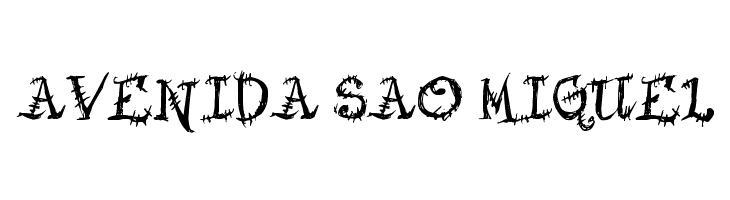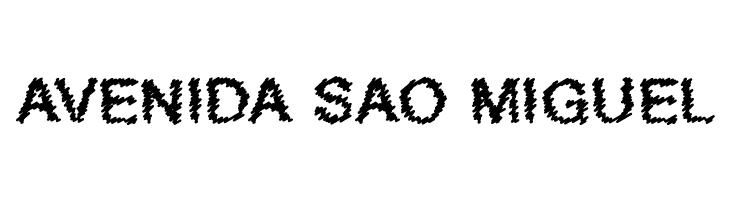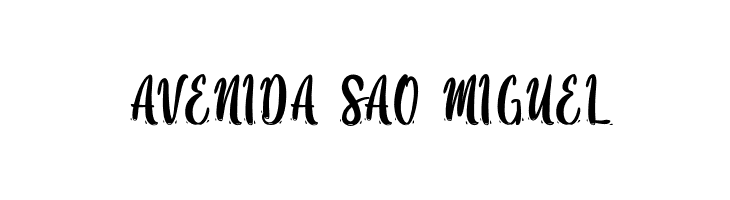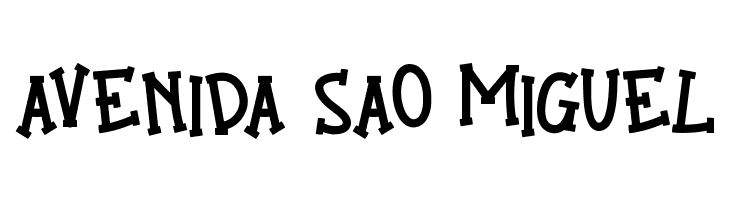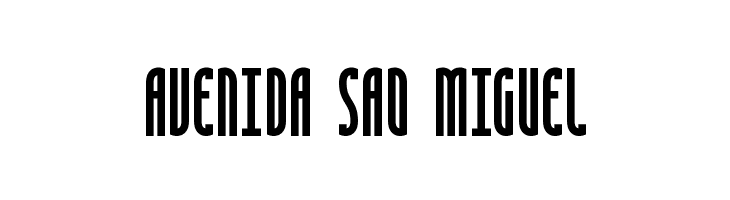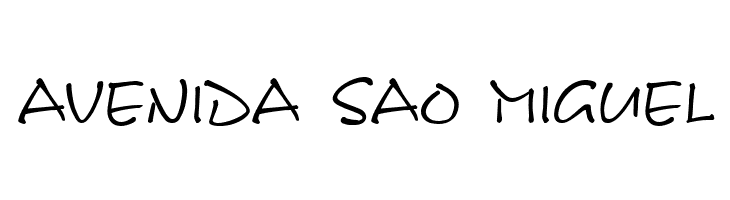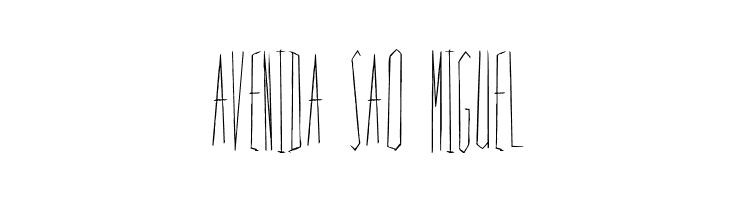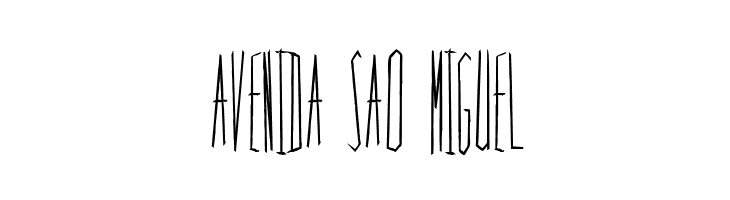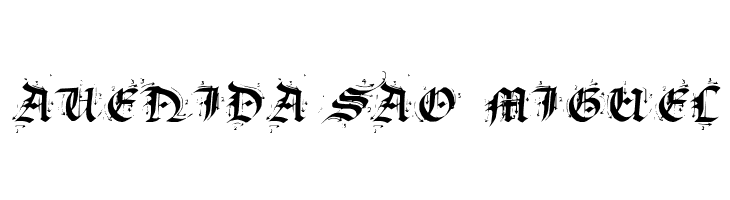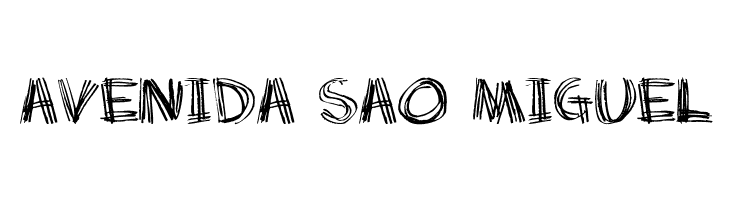
A cursive, handwritten-style font with elegant, flowing strokes.
A playful, wavy font with a hand-drawn, whimsical style.
A bold, gothic blackletter font with intricate, medieval-inspired designs.
A bold, cartoonish font with dynamic, slanted characters and a playful style.
A playful, bold font with whimsical, energetic characters and high contrast.
A playful, brush-style font with a hand-painted look, perfect for artistic projects.
A dynamic, handwritten font with elongated, slanted letterforms.
An edgy, distressed font with thorny, jagged edges.
An edgy, barbed wire-themed decorative font with bold, jagged characters.
A bold, narrow font with sharp serifs and an elegant, sophisticated style.
An edgy, graffiti-inspired font with sharp angles and a bold, artistic style.
A distressed, grunge-style font with a bold, hand-drawn appearance.
An elegant, cursive font with intricate flourishes and a classic calligraphic style.
An elegant, cursive font with ornate flourishes and a calligraphic style.
A bold, angular font with a futuristic and industrial design.
A vintage, typewriter-style font with a rough, textured appearance.
A vintage, typewriter-style font with a monospaced, slightly distressed appearance.
A playful, casual handwritten font with dynamic strokes.
A decorative, elongated font with sharp, angular edges and consistent thin strokes.
A modern, ultra-thin font with elongated, sleek characters.
A modern, edgy font with elongated, narrow letterforms and thin strokes.
A scratchy, hand-drawn font with a dynamic and textured style.
A bold, handwritten font with a dynamic and informal style.
A dynamic, hand-drawn font with a graffiti-like, expressive style.
A bold, graffiti-style font with dynamic and expressive strokes.
A playful, handwritten font with a casual and informal style.
A bold, scribbled font with a hand-drawn, artistic style.
A bold, scribbled font with a hand-drawn, textured appearance.
A chaotic, hand-drawn font with a scribbled, graffiti-like style.